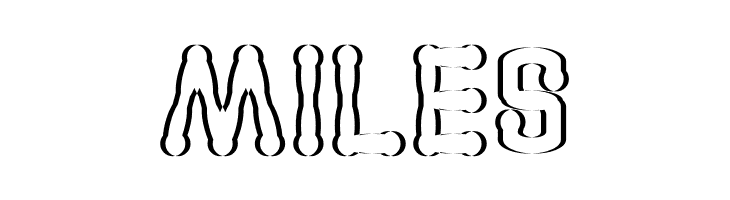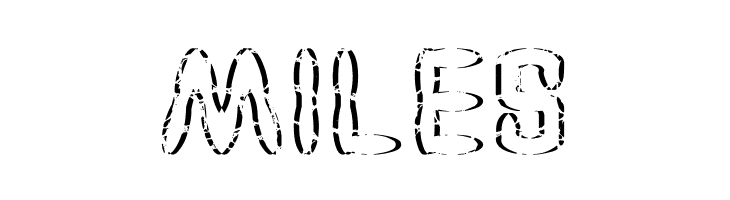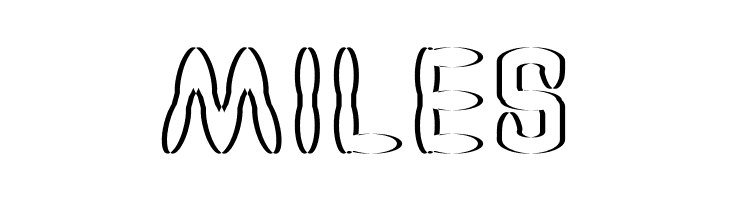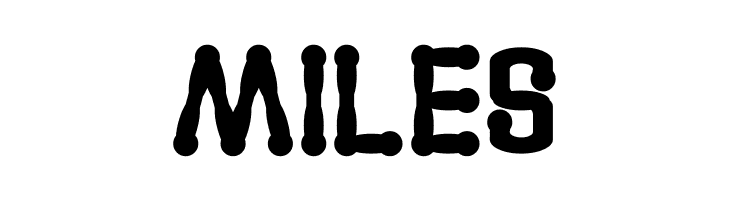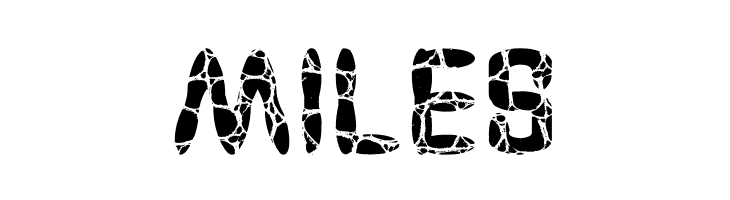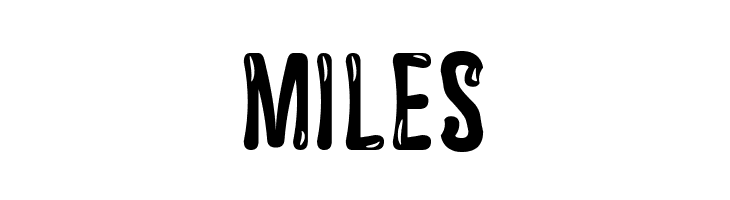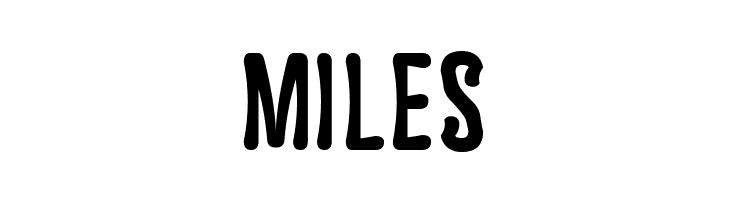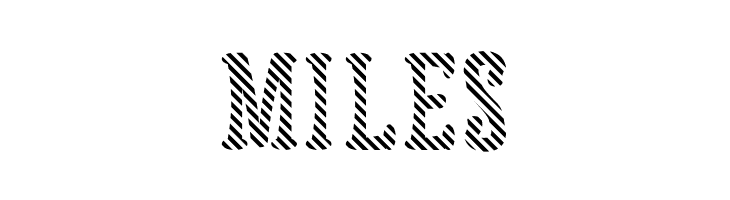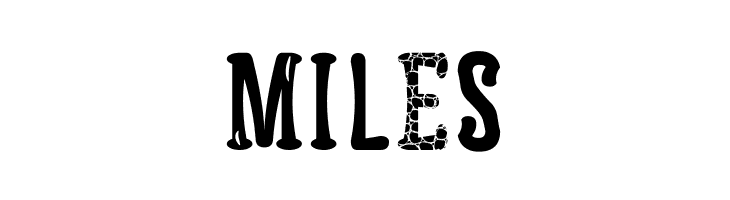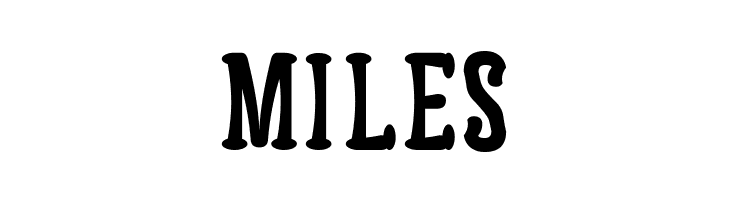
A bold, chaotic font with irregular, hand-drawn shapes and varying thicknesses.
A bold, decorative font with diagonal stripes for a dynamic look.
A modern, decorative font with diagonal stripes and bold geometric shapes.
A bold, playful font with rounded, organic shapes and a hand-drawn feel.
A bold, playful font with organic, blob-like shapes and a whimsical style.
A bold, playful font with a liquid-like, dynamic appearance.
A bold, playful font with organic, blob-like shapes and high contrast.
A bold, playful font with an organic, liquid-like design.
A modern, striped font with a digital, futuristic design.
A bold, striped font with a futuristic and digital aesthetic.
A bold, outlined font with a playful, hollow design ideal for creative projects.
A bold, distressed stencil-style font with an industrial, rugged appearance.
A bold, playful font with rounded edges and a whimsical style.
A bold, playful font with rounded edges and exaggerated serifs.
A decorative, hand-drawn style font with bold outlines and hollow interiors.
A bold, playful font with a unique outlined, three-dimensional style.
A modern, outlined font with a playful and artistic style.
A bold, textured font with a cracked, distressed appearance for edgy designs.
A bold, brush-style font with an energetic and rebellious vibe.
A bold, playful font with a hand-drawn feel and retro-modern aesthetics.
A bold, decorative font with star cutouts in each character, perfect for eye-catching designs.
A bold, eclectic font with varying patterns and textures, offering a chaotic yet captivating style.
A bold, decorative font with unique textures and patterns.
A bold, decorative font with diagonal stripes for a modern, dynamic look.
A bold, striped decorative font ideal for eye-catching designs.
A bold, wavy font with a liquid-like texture, perfect for dynamic designs.
A bold, decorative font with fluid, wavy lines and high contrast strokes.
A bold, playful font with a liquid-like, dynamic appearance.